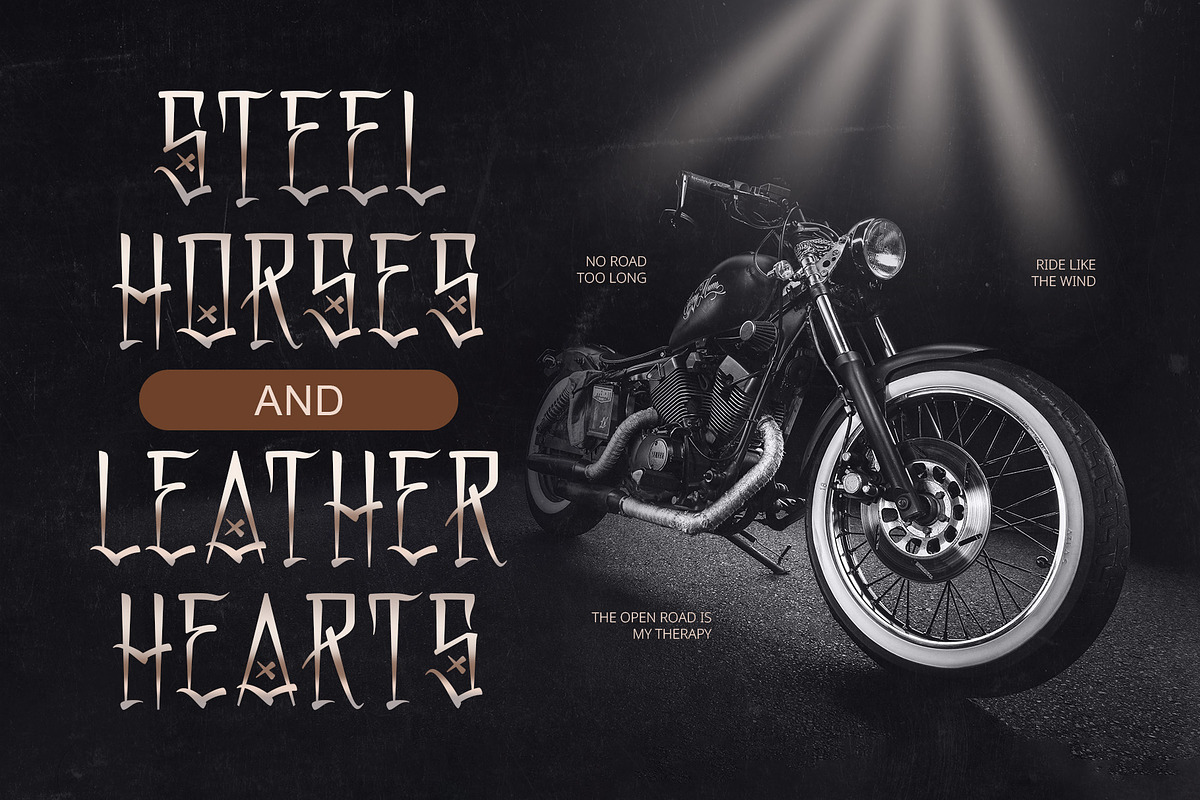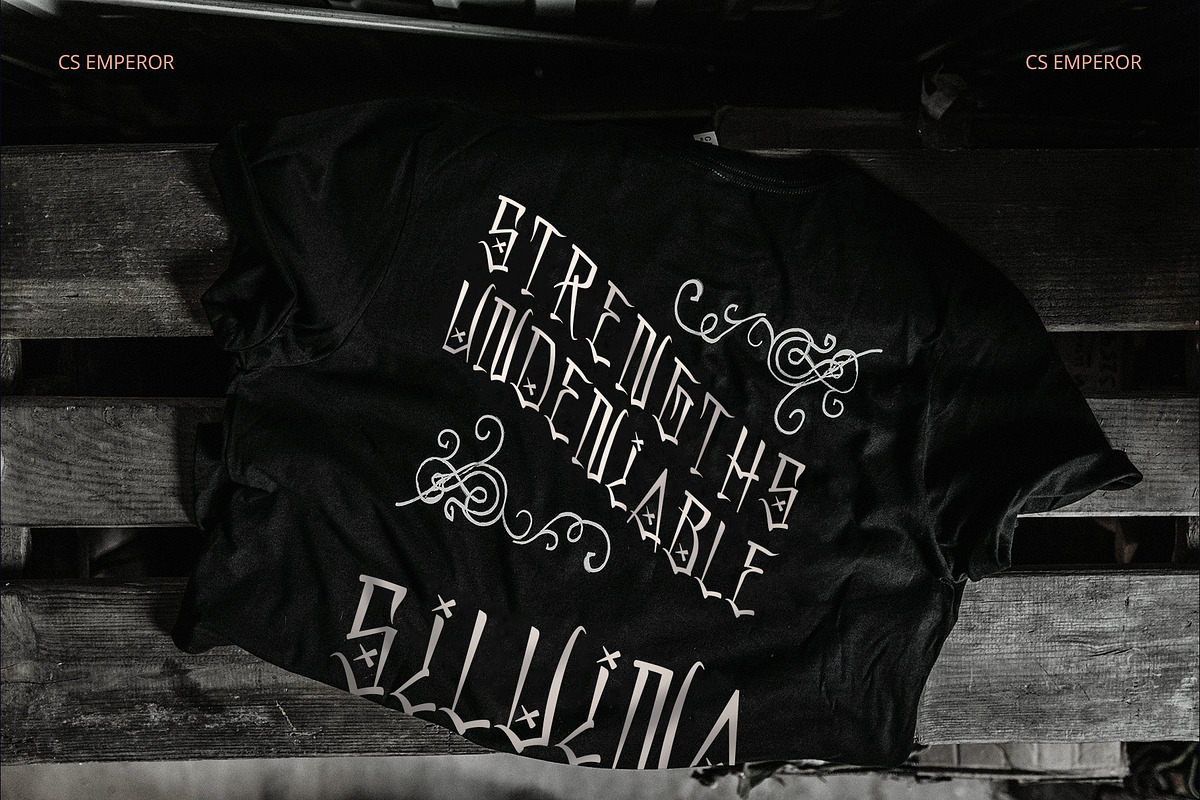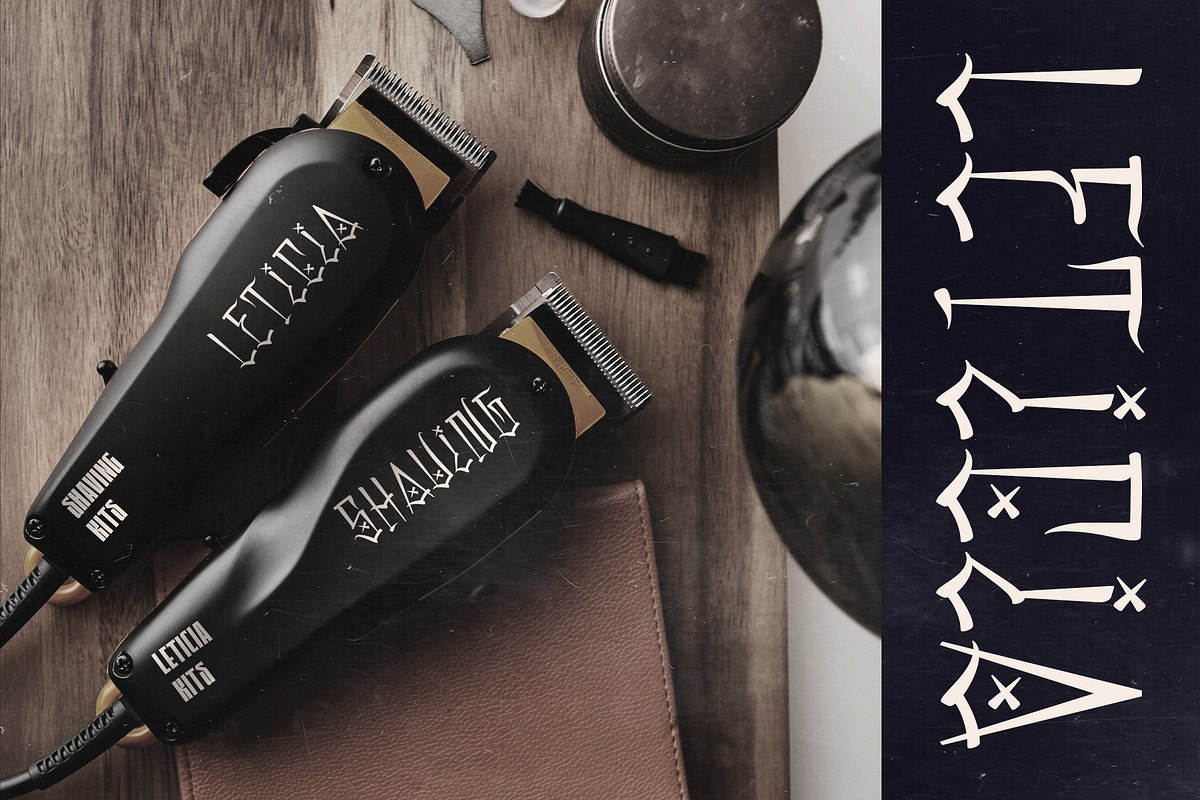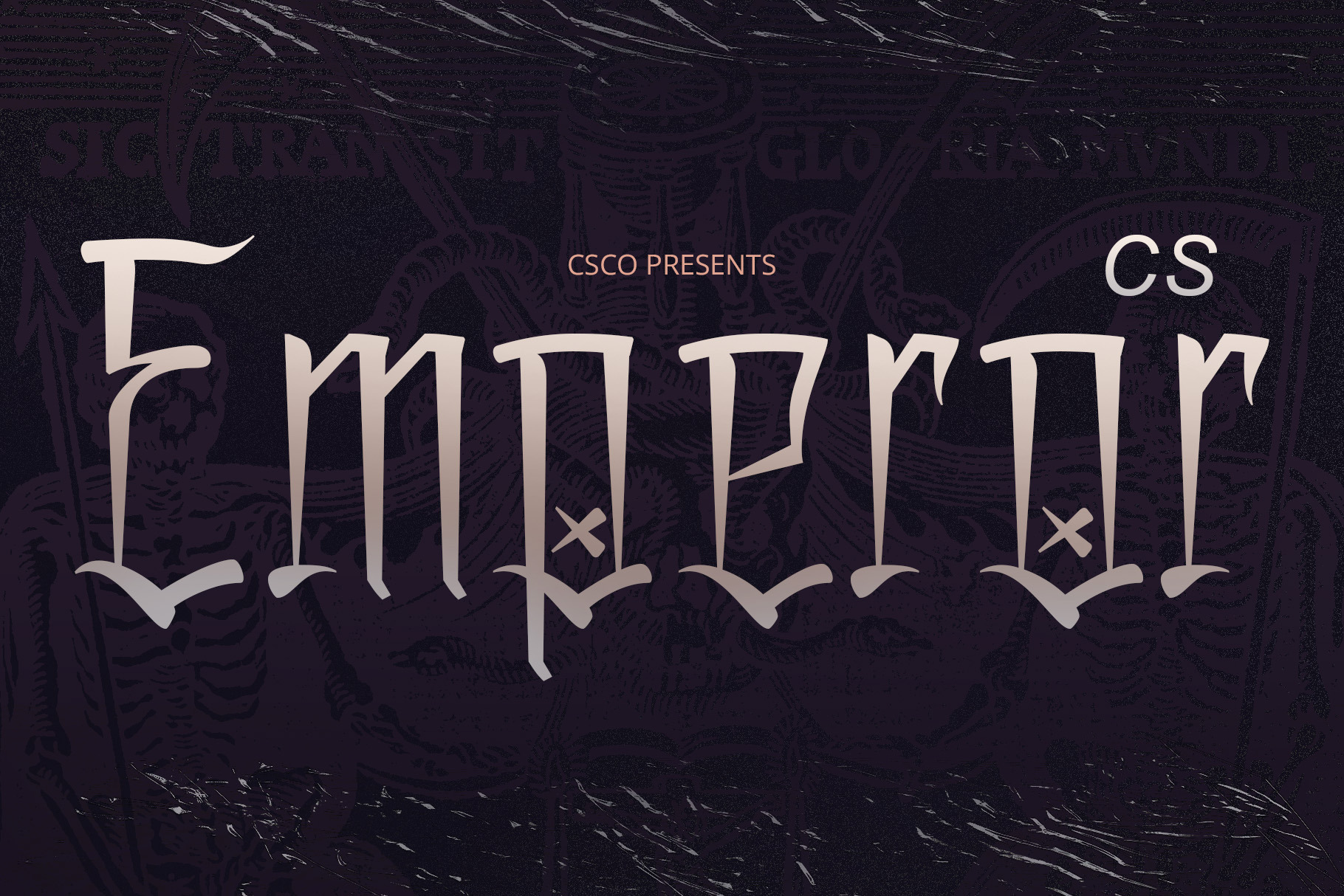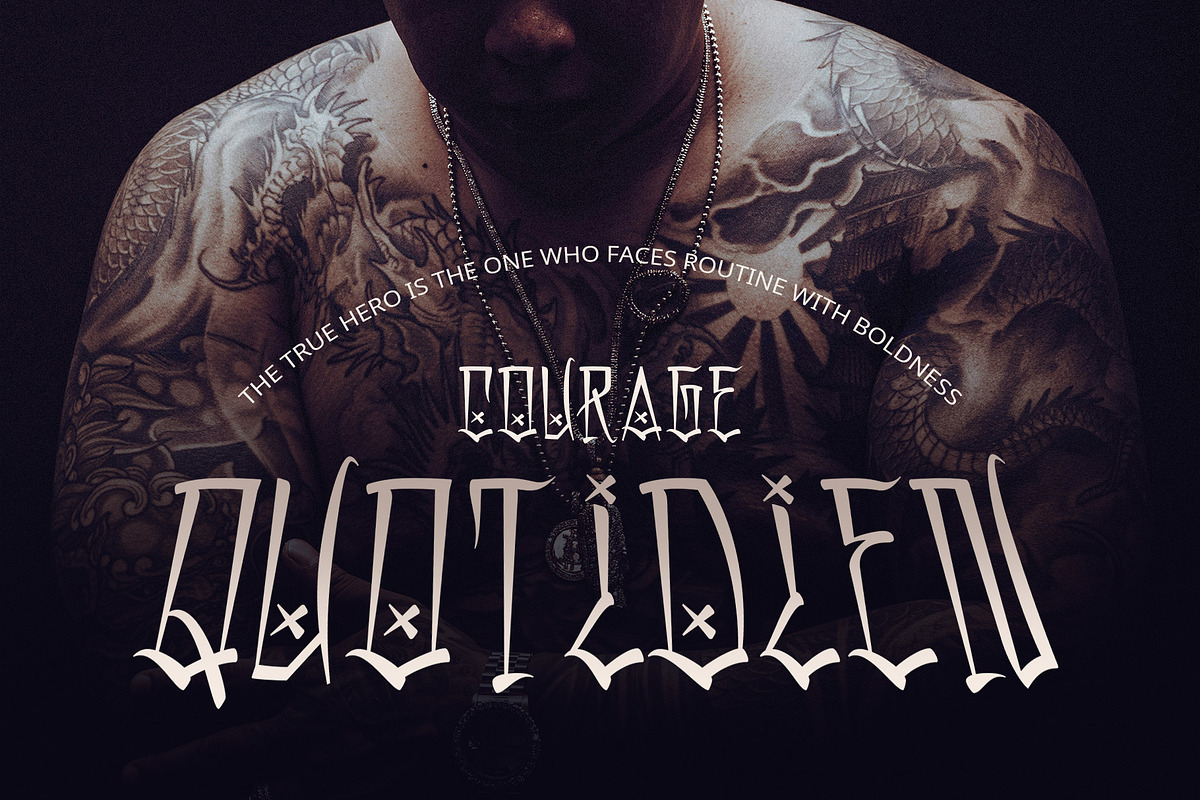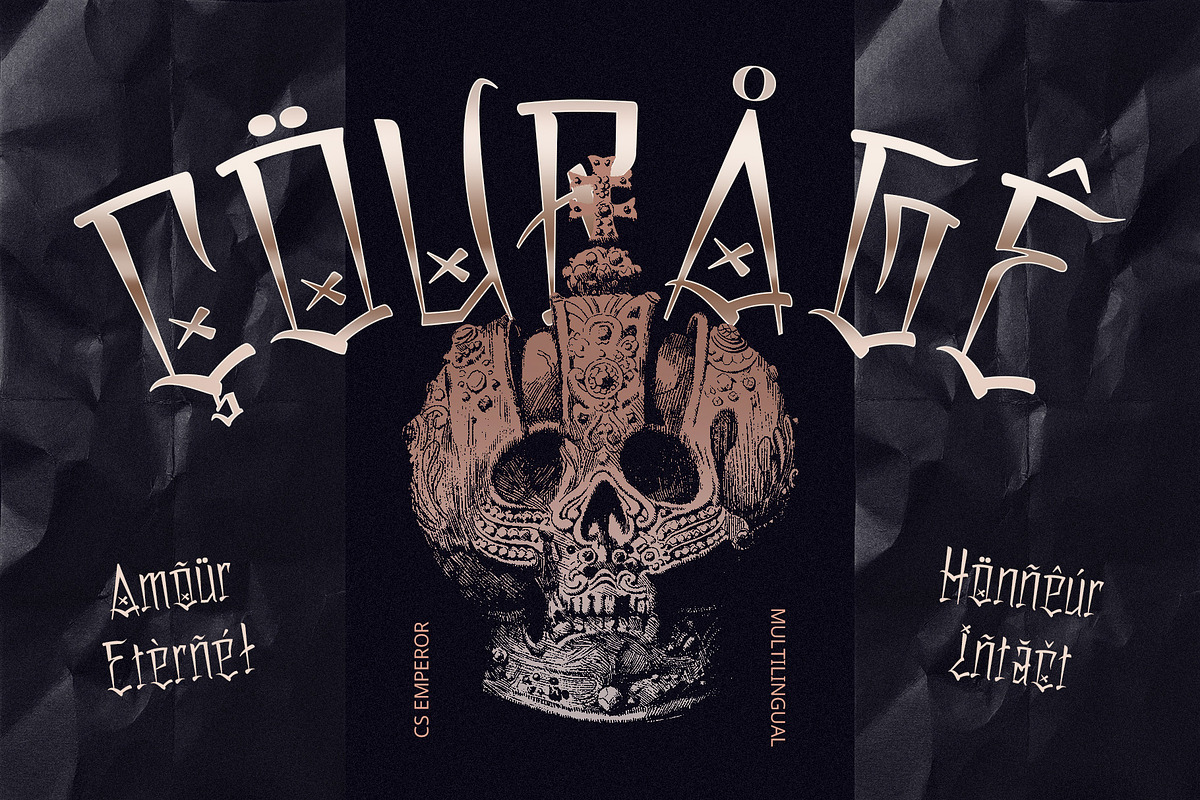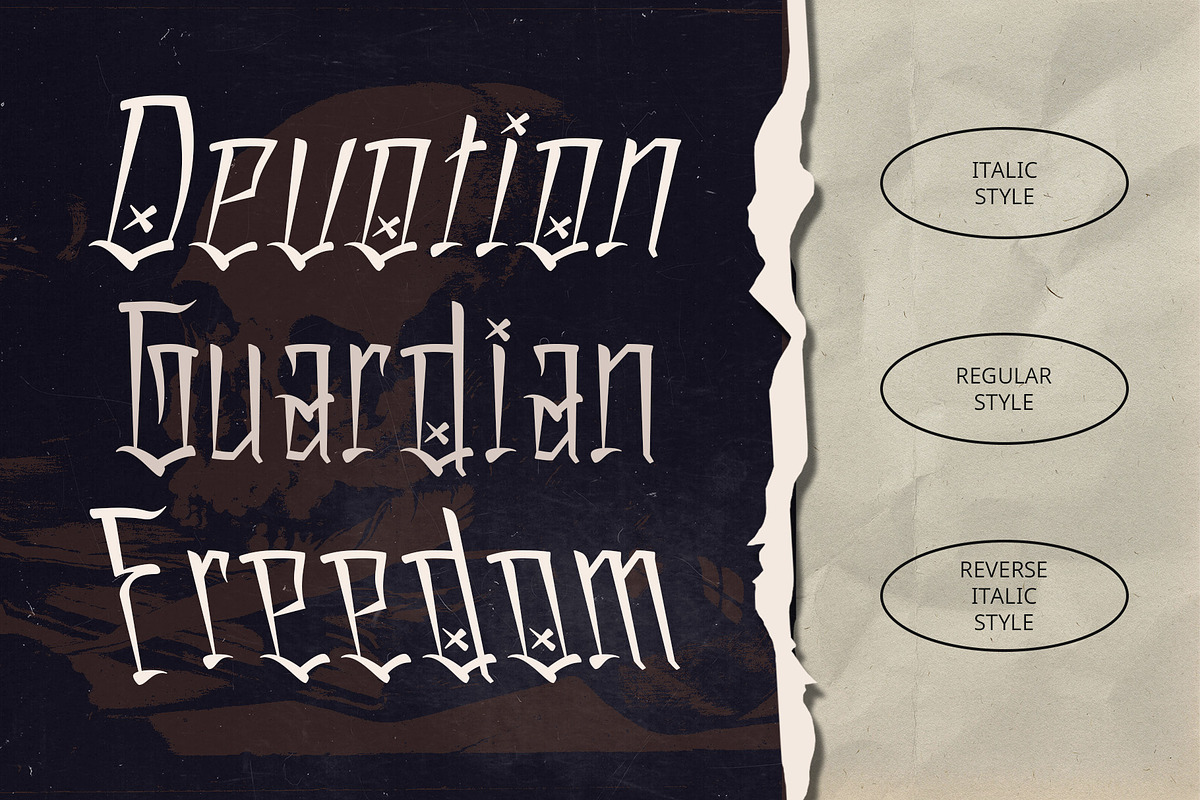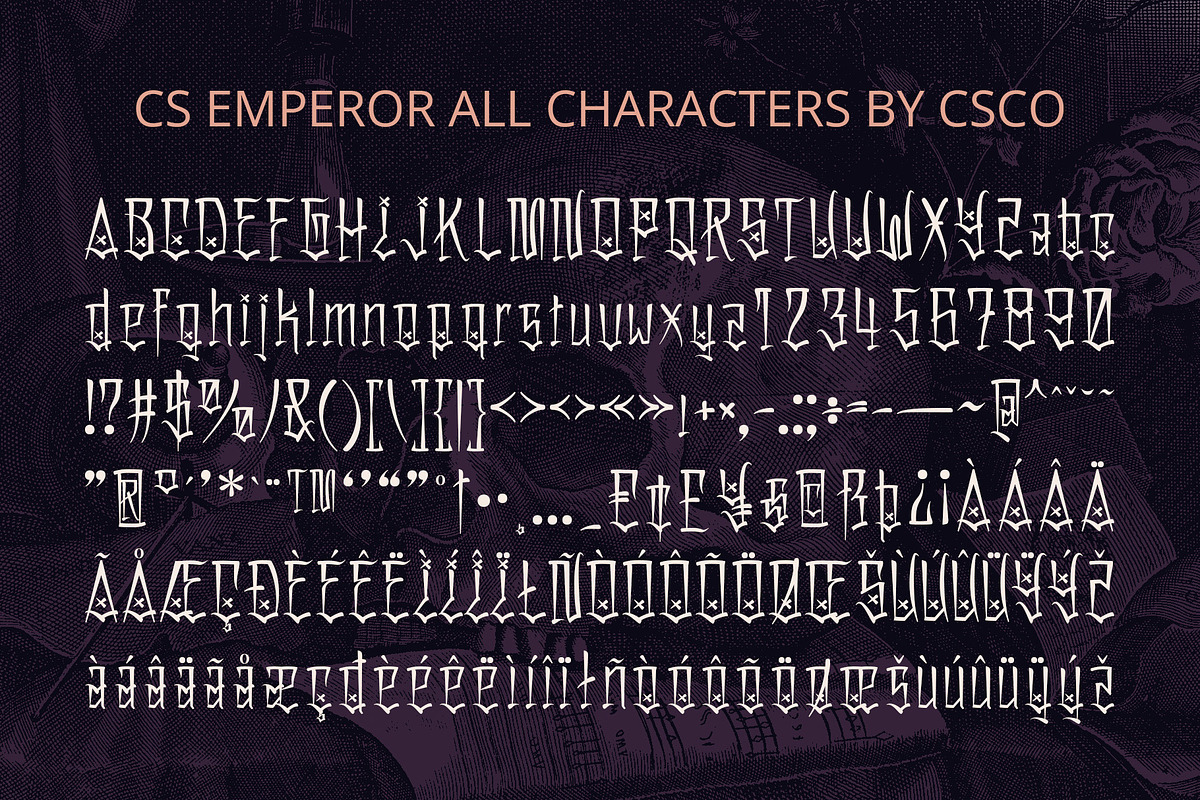
CS Emperor – Chicano Graffiti Font
CS Emperor – Chicano Graffiti Font: A Bold Expression of Urban Culture
Chicano Graffiti Display Font CS Emperor is a bold display font that brings the energy of street art to life. Combining intricate details with playful, expressive elements, this font captures the rebellious spirit of urban culture.
Fluid Curves and Sharp Angles Featuring fluid, dynamic curves and sharp, striking angles, CS Emperor offers a unique visual appeal. Its blend of flowing forms and bold edges creates a font that is both lively and impactful, perfect for designs that demand attention.
Celebrating Individuality and Creativity Inspired by Chicano graffiti, CS Emperor exudes a sense of pride and creativity. The playful flourishes and vibrant design elements make it ideal for projects that seek to highlight originality and artistic freedom, from urban murals to album covers.
Perfect for Vibrant, Expressive Designs Whether it’s for promotional materials, clothing, or branding, CS Emperor’s distinctive style brings a vibrant, urban edge to any project. Its energetic design speaks to the heart of street culture, making it perfect for youth-oriented or artistic campaigns.
Urban Rebellion and Artistic Attitude CS Emperor channels the essence of rebellion and individuality, making it an ideal choice for designs that aim to reflect a laid-back, artistic attitude. This font serves as the perfect tool for projects seeking to showcase bold, expressive designs with an unmistakable urban vibe.